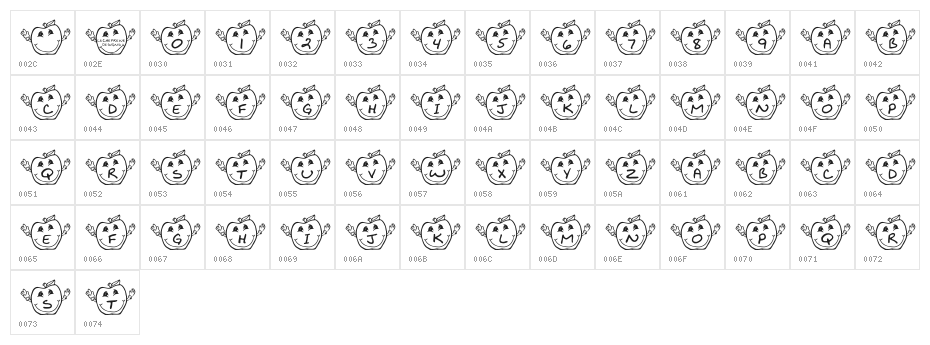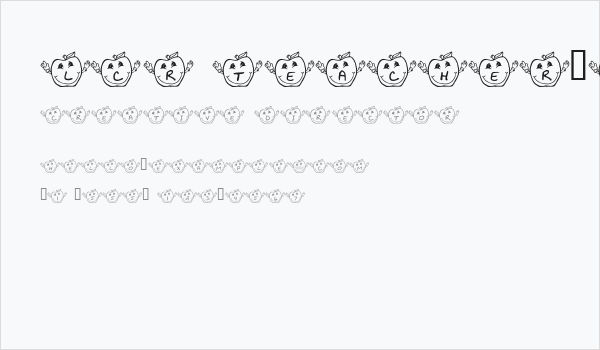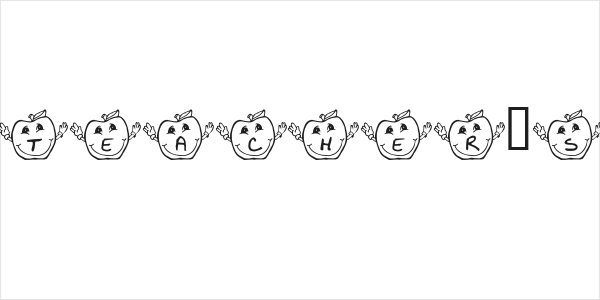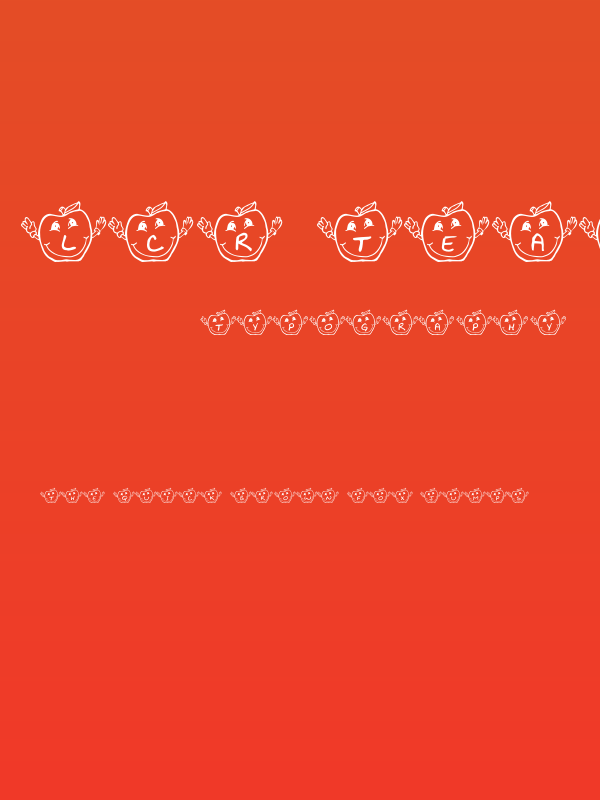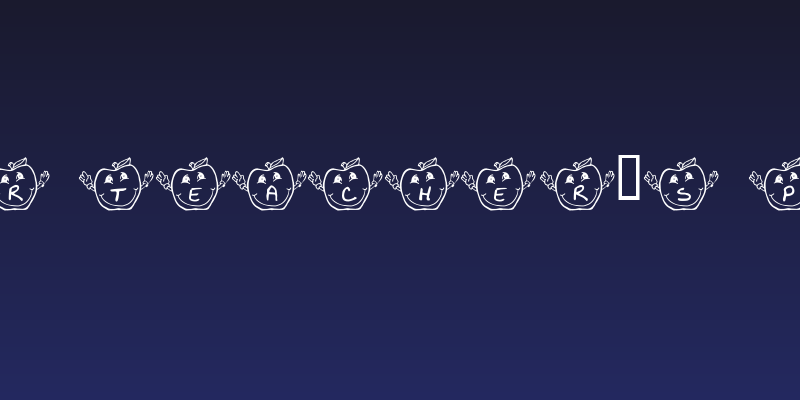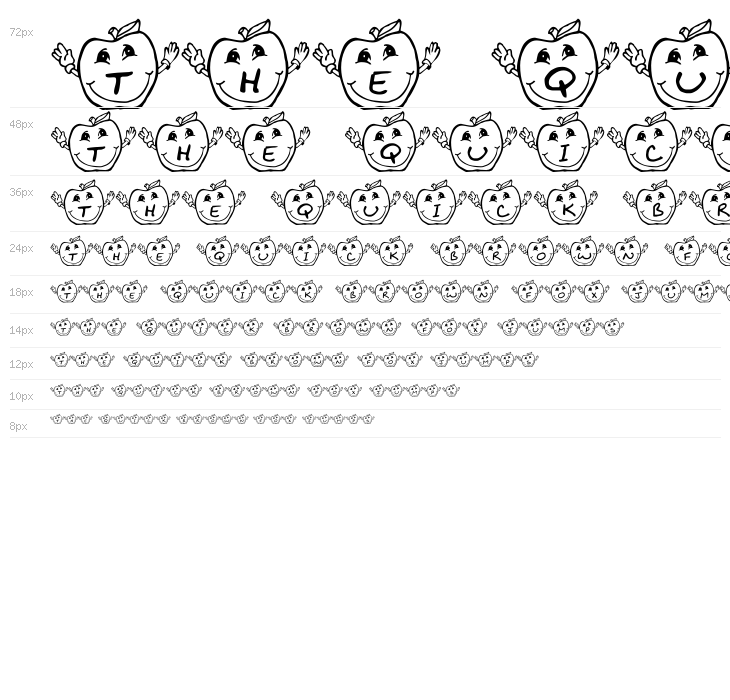
LCR Teacher's Pet Font
LCR Teacher's Pet Description
This playful and whimsical font features each character enclosed within a cartoonish apple shape, complete with a smiling face and waving hands. The letters are uppercase and lowercase, with numbers and a selection of special characters, all maintaining the same apple motif. The style is light-hearted and fun, making it ideal for projects aimed at children or educational materials. The characters are well-defined within their apple shapes, ensuring readability while adding a decorative touch. This font's unique design makes it stand out, perfect for adding a touch of creativity and joy to any project.
Overall StylePlayful
Use CaseHeadlines, Decorative text
Proposed ProjectsChildren's books, educational posters, school newsletters, playful invitations, and classroom decorations.